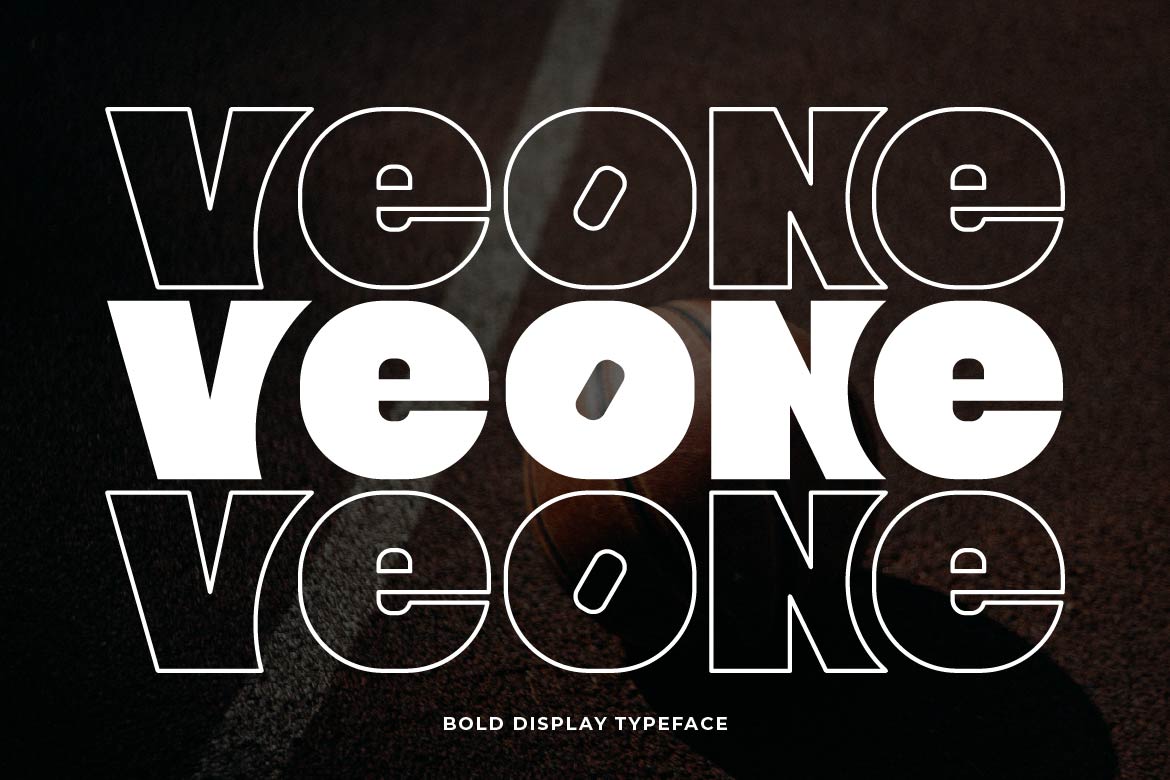
- Veone – Bold Strong Display Font for Posters & Headlines
Veone is a bold and strong display typeface designed to command attention. With its heavy weight, solid structure, and confident letterforms, Veone delivers maximum visual impact in headlines, posters, logos, packaging, and branding projects that demand presence.
Built for high-contrast layouts and large-scale compositions, Veone maintains clarity while projecting power and authority. Its compact spacing and strong silhouette make it ideal for modern campaigns, sports visuals, streetwear branding, music covers, and statement typography.
Veone isn’t just bold — it’s unapologetically dominant. When your design needs strength, Veone speaks loud and clear.